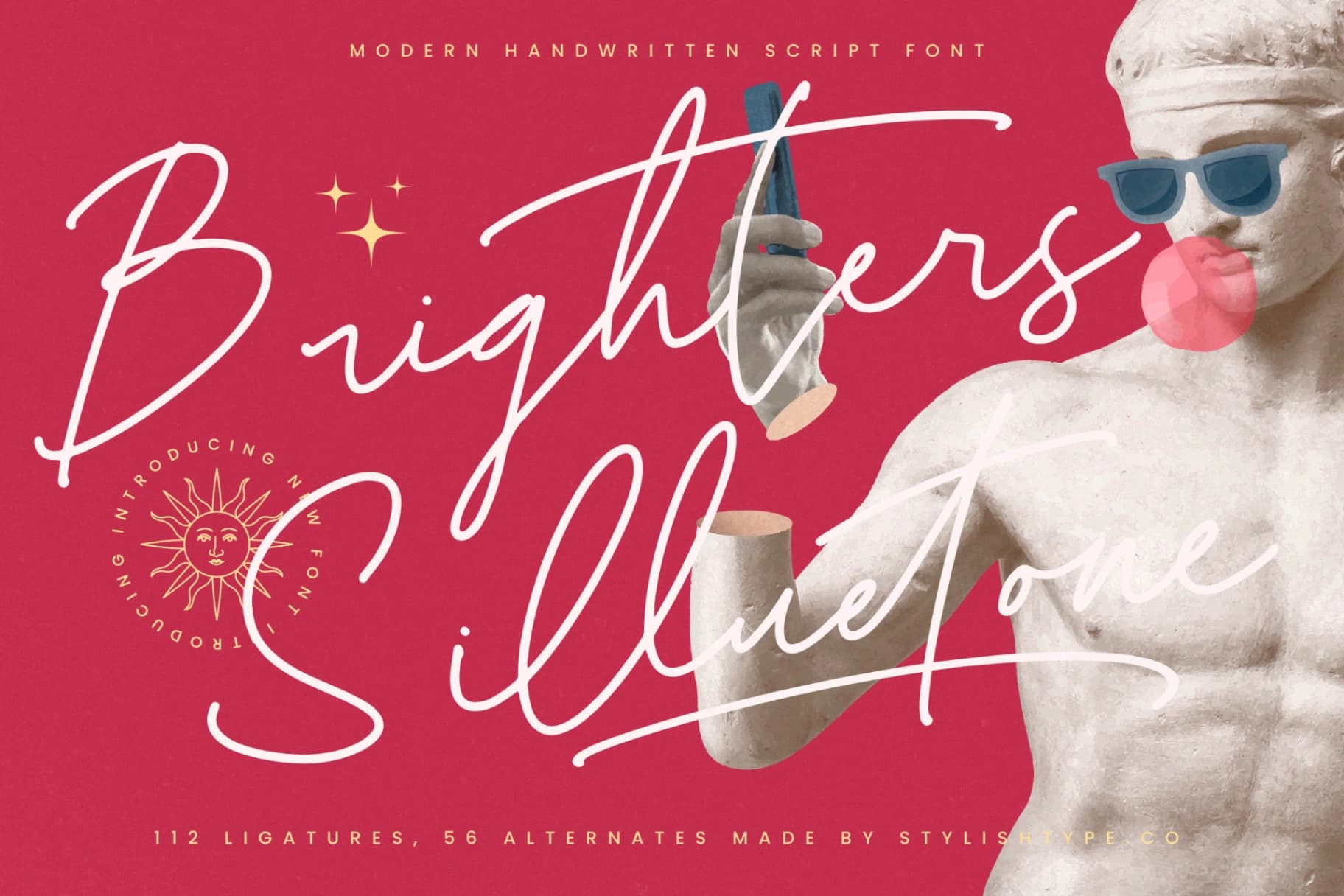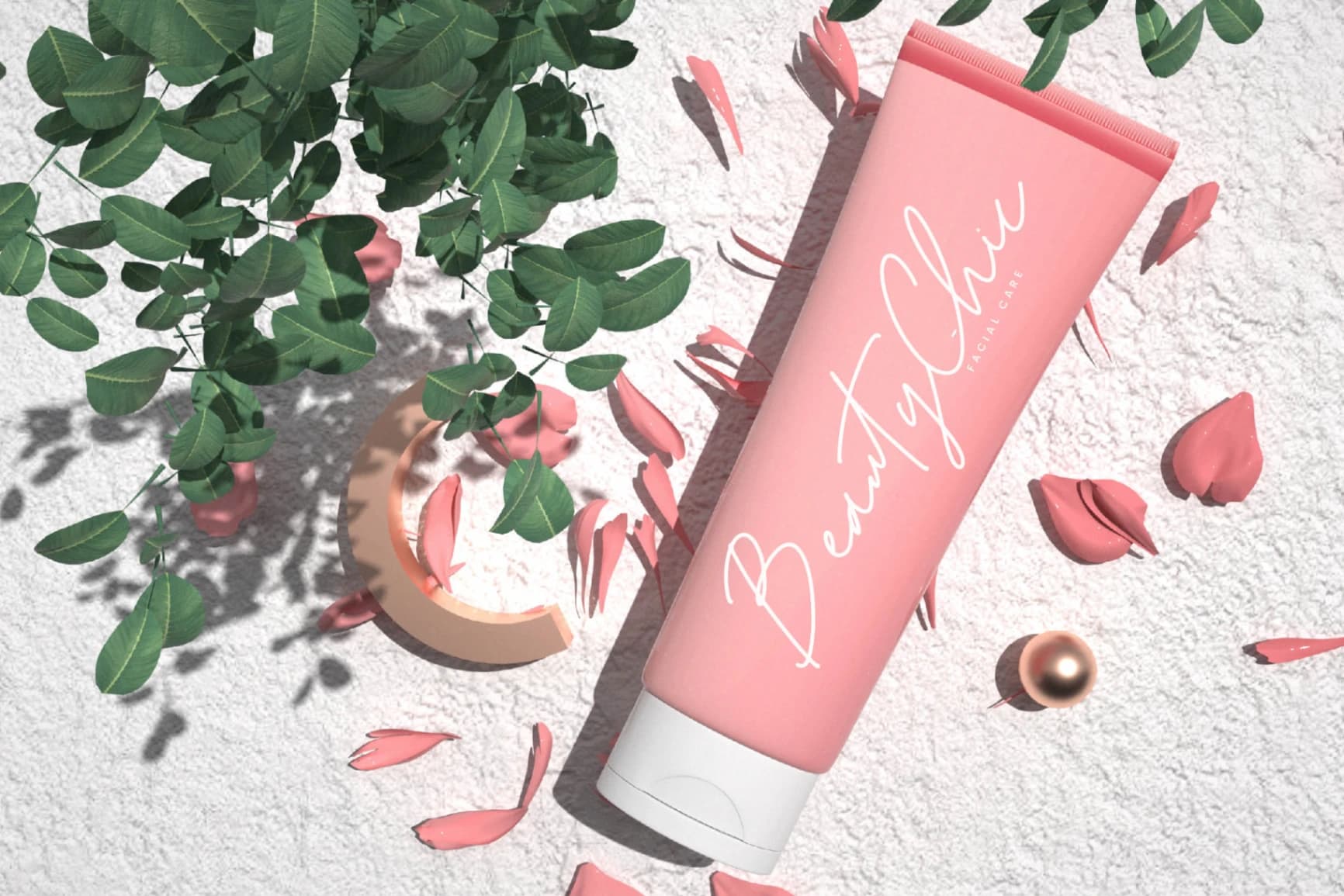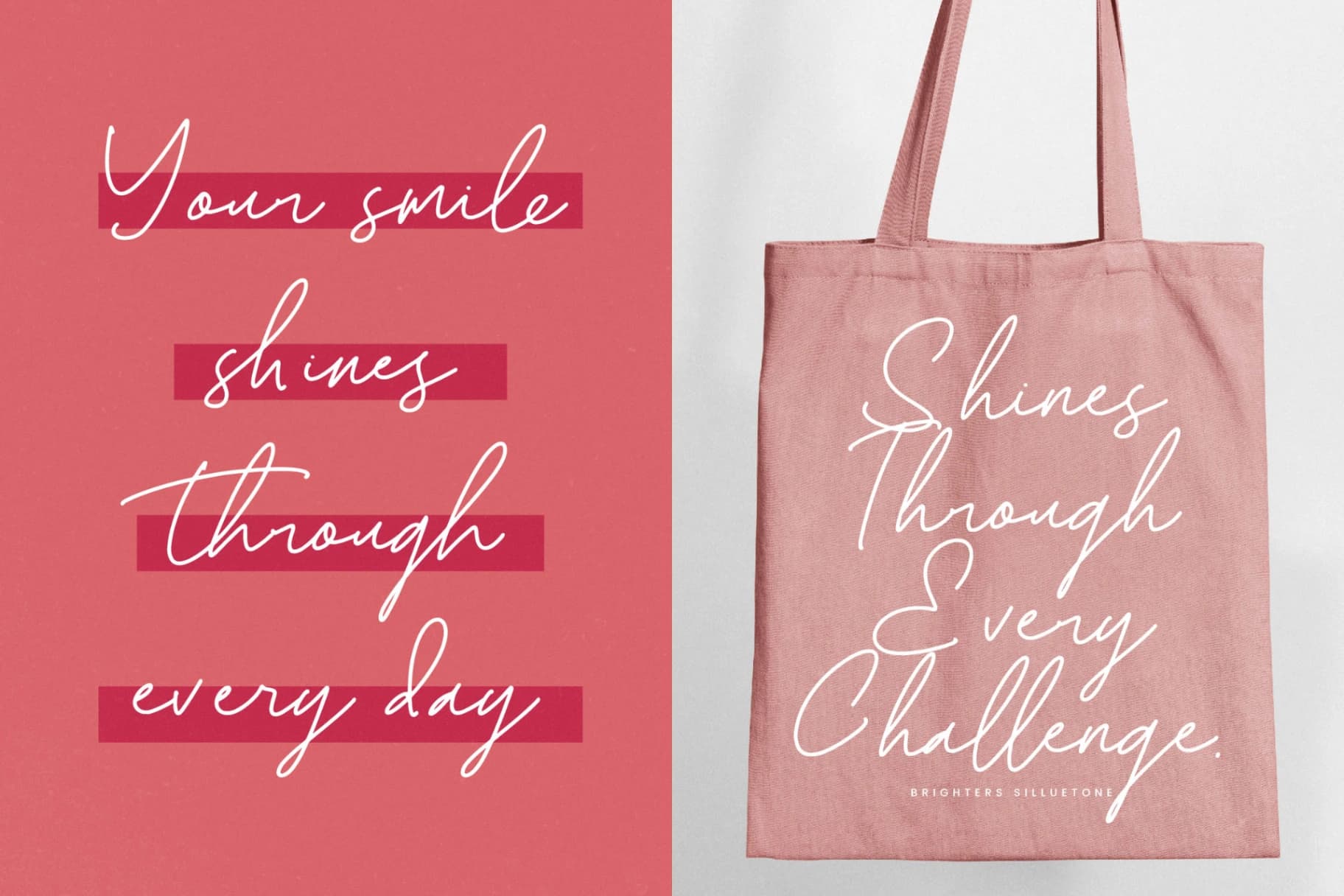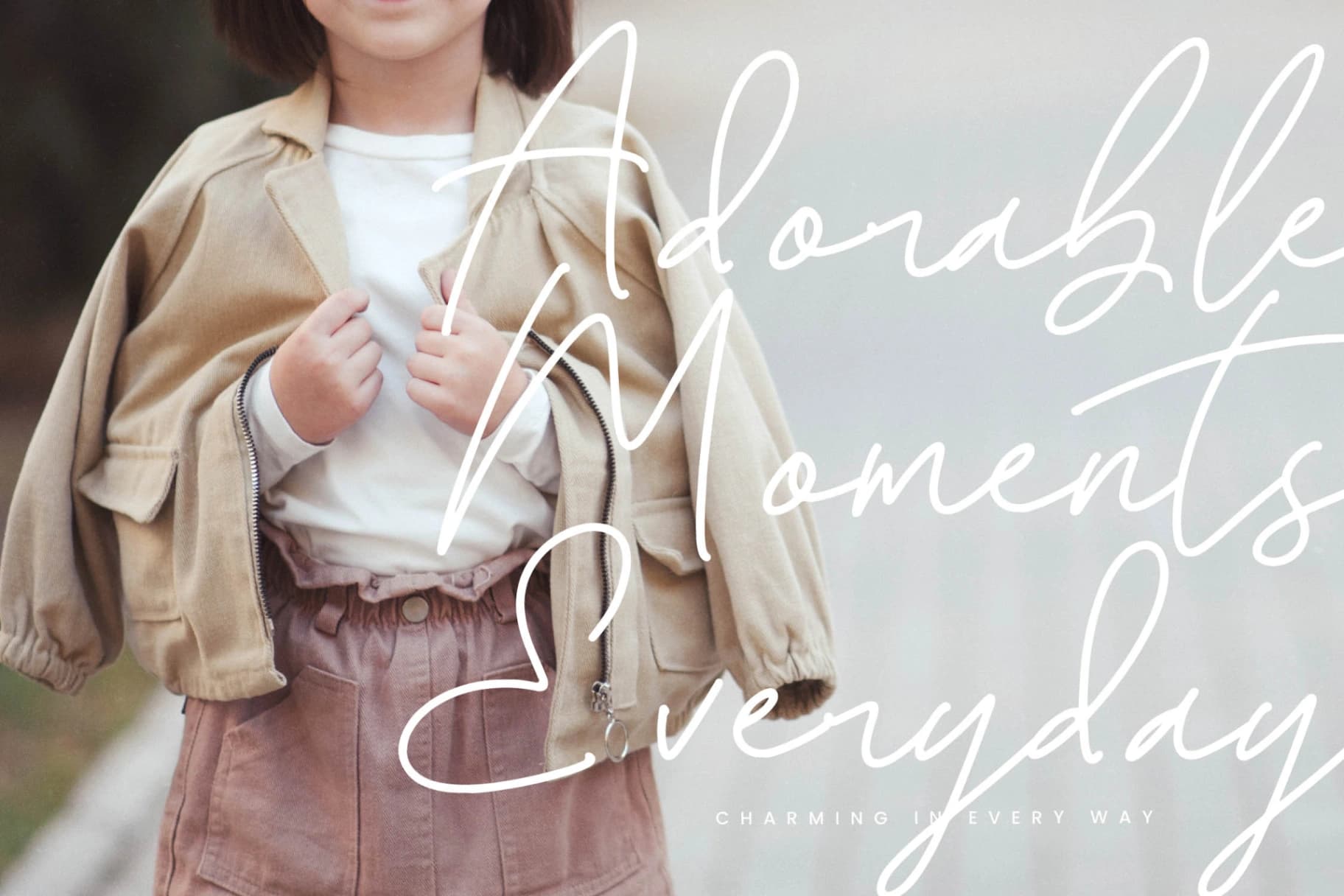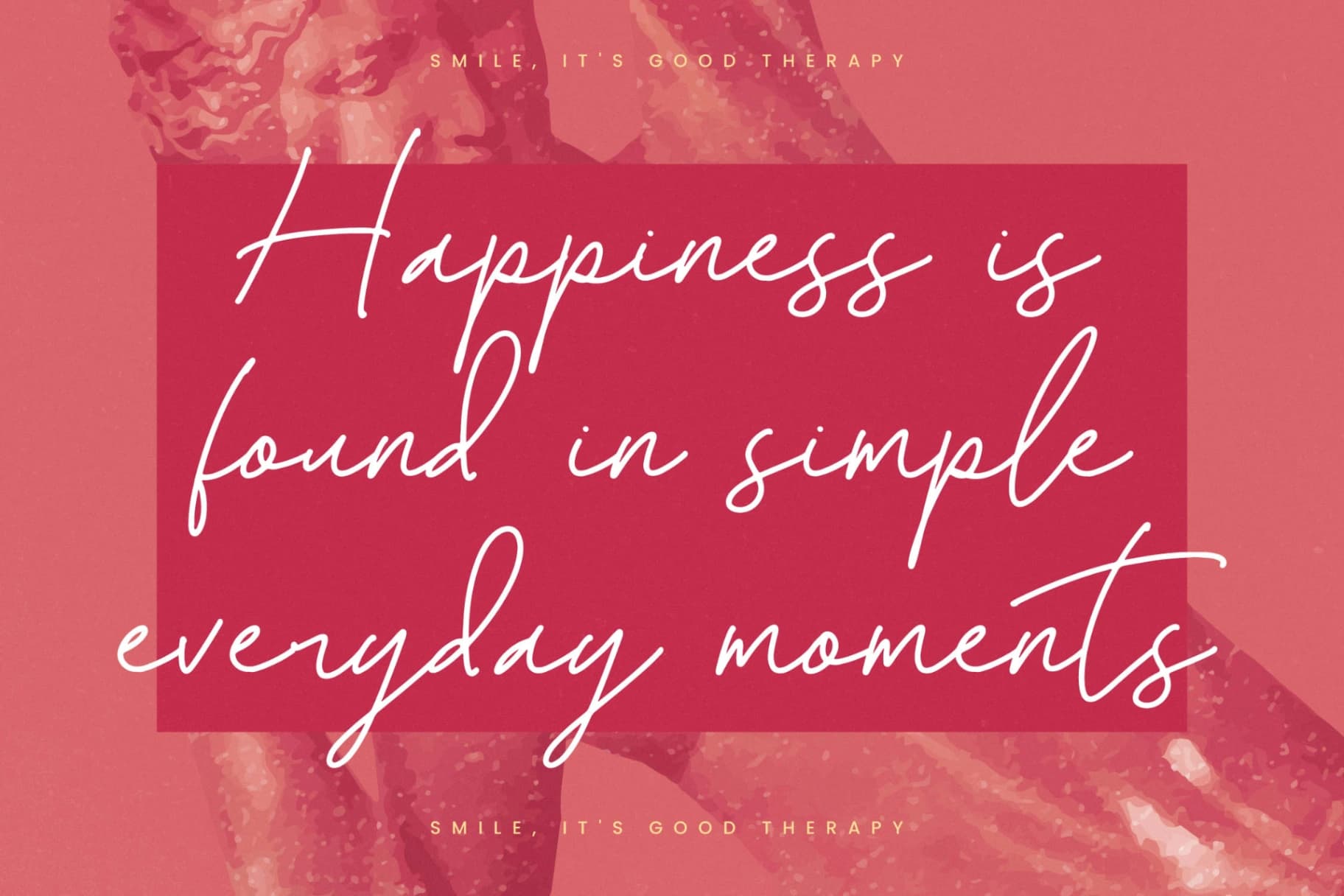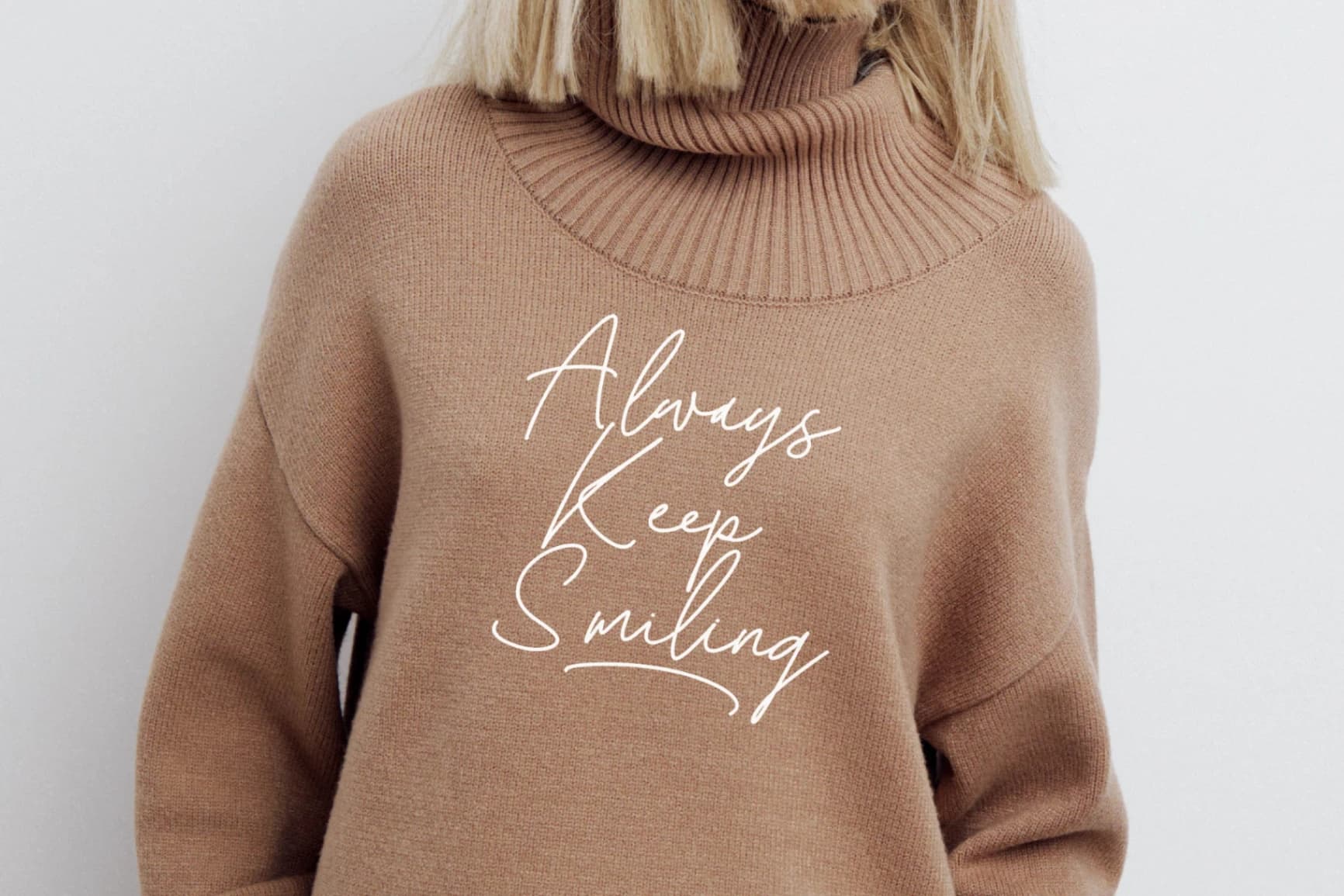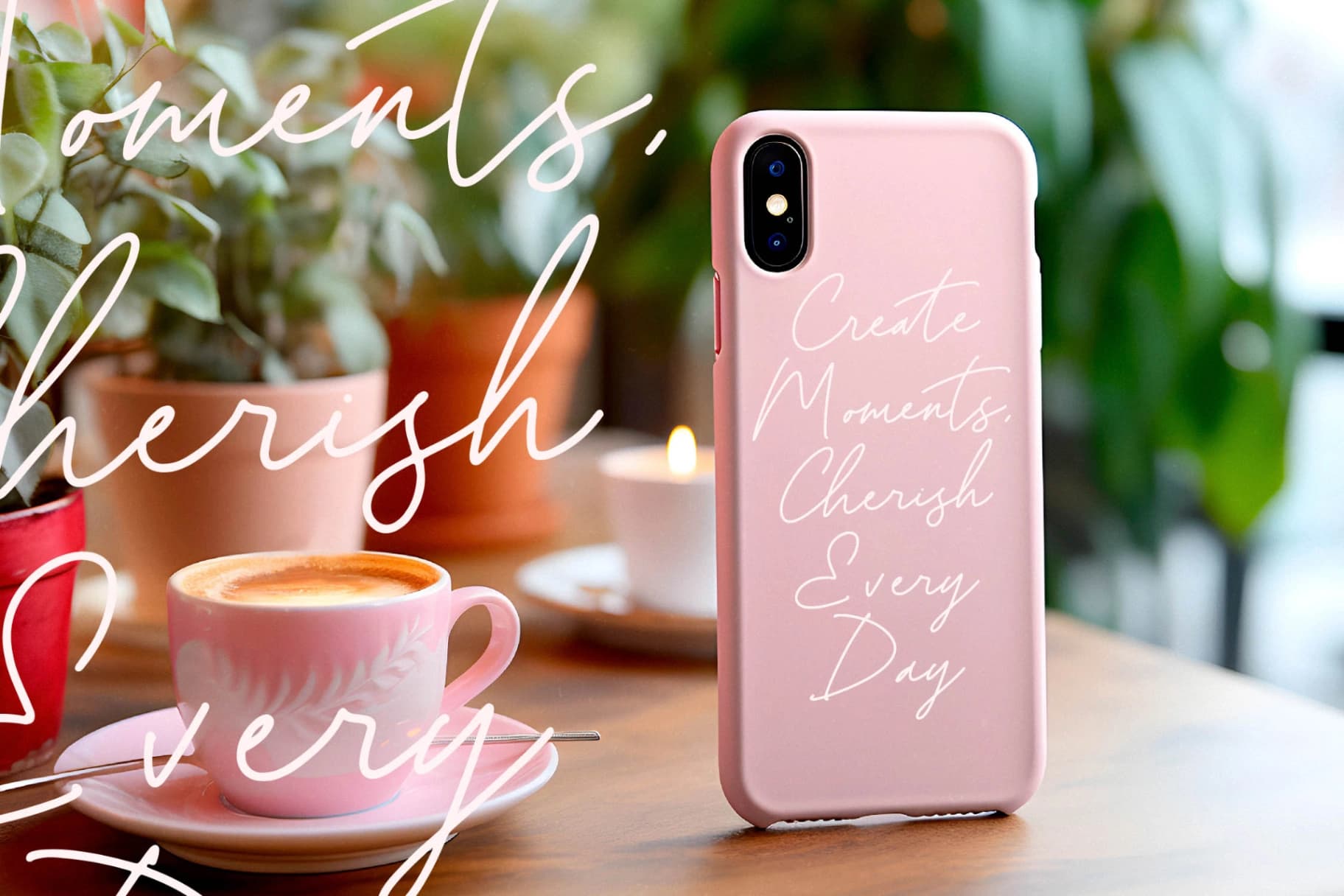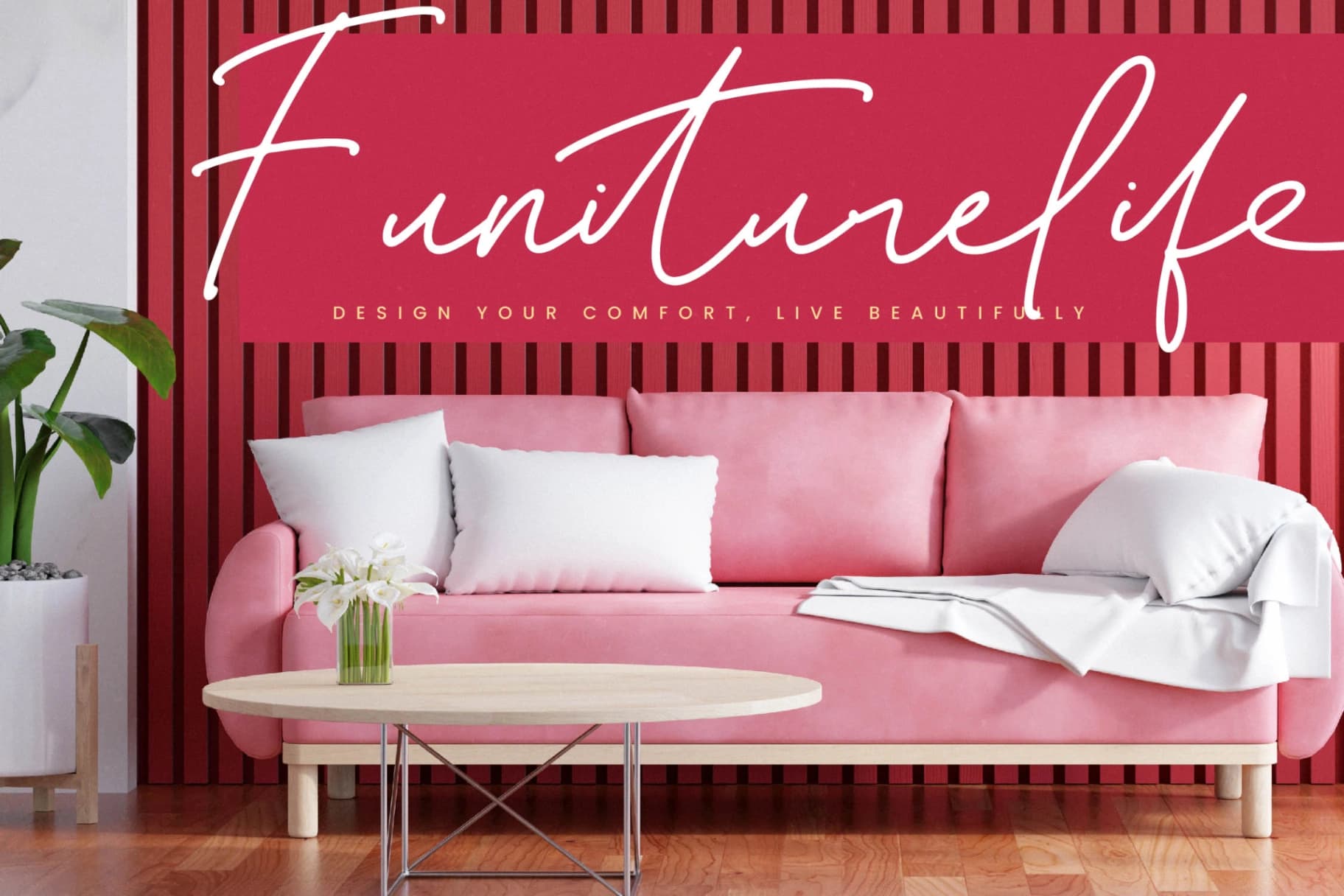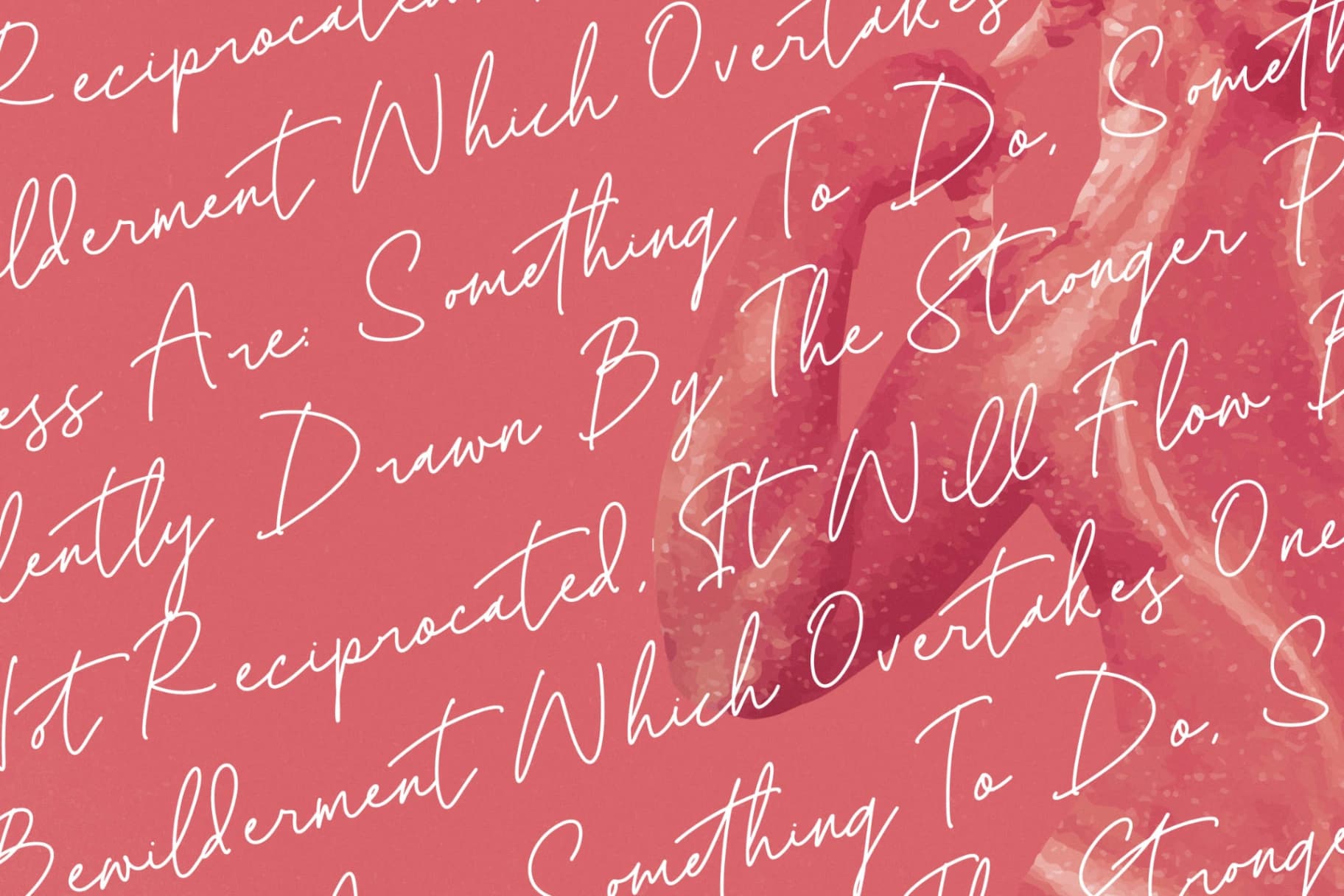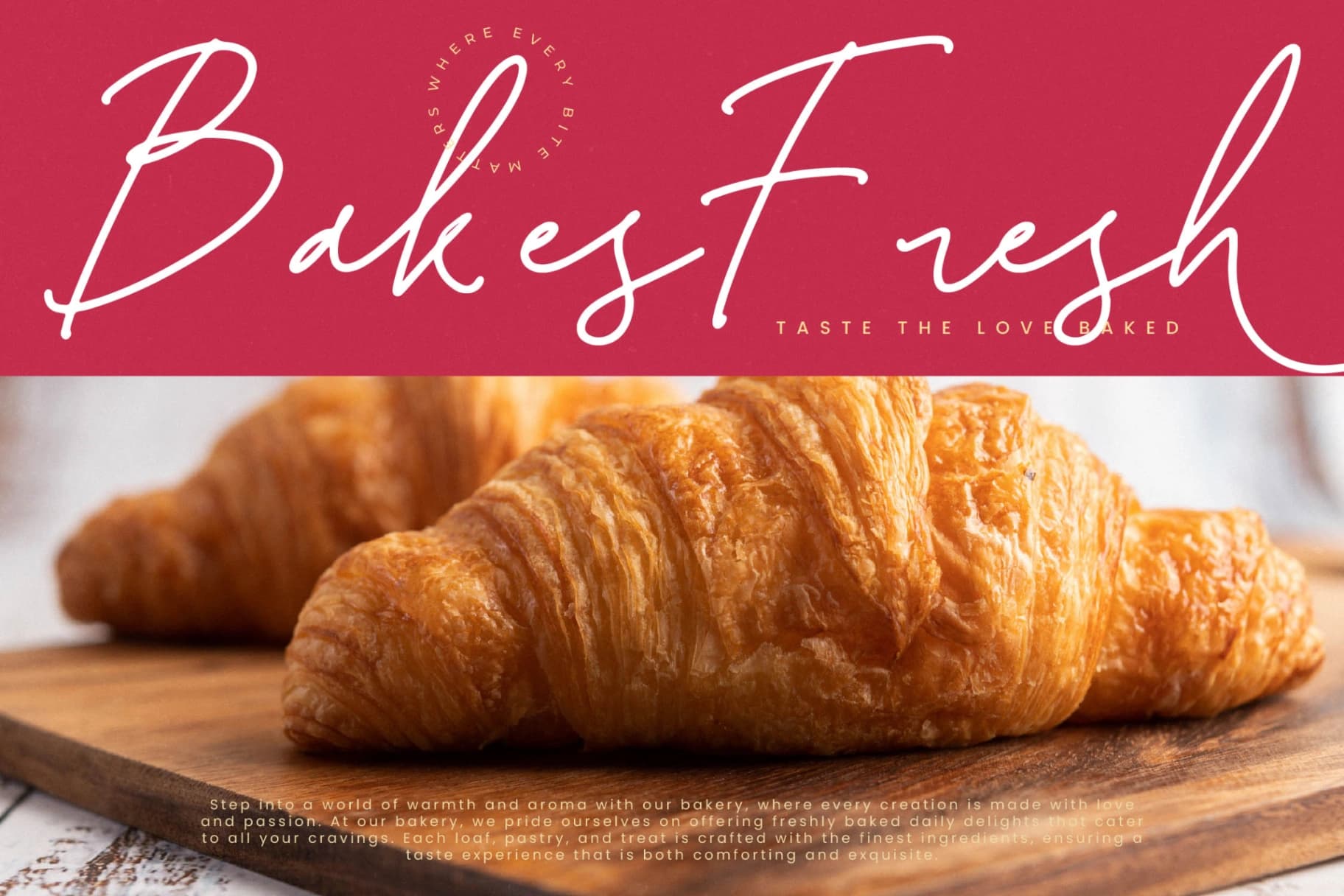
Brighters Silluetone - Handwritten Script Font
Brighters Silhuetone is a modern handwritten script font that combines playful contemporary style with the elegance of flowing handwriting. Featuring 112 ligatures and 56 alternates, this typeface delivers extensive creative flexibility, allowing designers to build unique and expressive lettering compositions with ease. Each stroke has been carefully designed to look fluid, natural, and stylish, making it an excellent choice for both casual and professional design projects.
The youthful and trendy aesthetic of Brighters Silhuetone makes it especially versatile for projects requiring a fresh and modern vibe. Perfect for branding projects, editorial layouts, social media content, event posters, fashion campaigns, and exclusive packaging, this handwritten script adapts seamlessly across digital platforms and print media. Its bold yet elegant strokes ensure your typography feels authentic and memorable, giving your designs a signature handwritten identity.
The true strength of Brighters Silhuetone lies in its ability to communicate mood and creativity. Its handwritten strokes feel personal and dynamic, while the ligatures and alternates let you adapt the tone — from playful and casual to refined and artistic. This adaptability makes it suitable for industries such as fashion, lifestyle, beauty, weddings, and creative marketing, where visual identity and emotional connection are vital.
More than just a decorative script, Brighters Silhuetone is also a storytelling tool. It transforms simple words into captivating visuals, adding a human touch that ensures your designs resonate with your audience. From event promotions and social media campaigns to romantic stationery and luxury branding, this font gives your creative projects a look that is both memorable and impactful.
If you are searching for a handwritten script font that blends modern aesthetics, trendy energy, and professional quality, Brighters Silhuetone is the perfect choice. It elevates your projects with authentic handwritten charm, ensuring that your creative work stands out with style, grace, and bold personality.